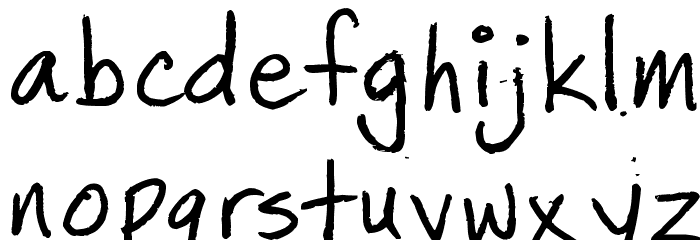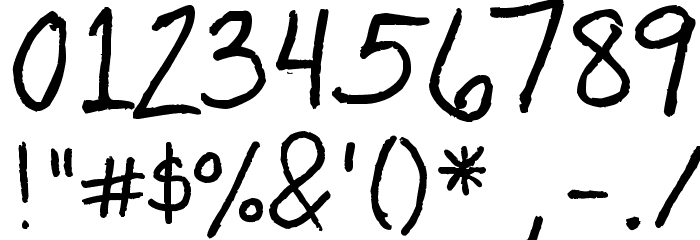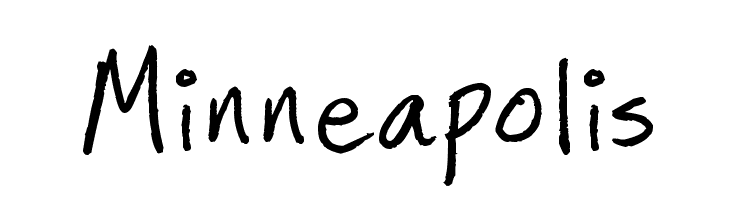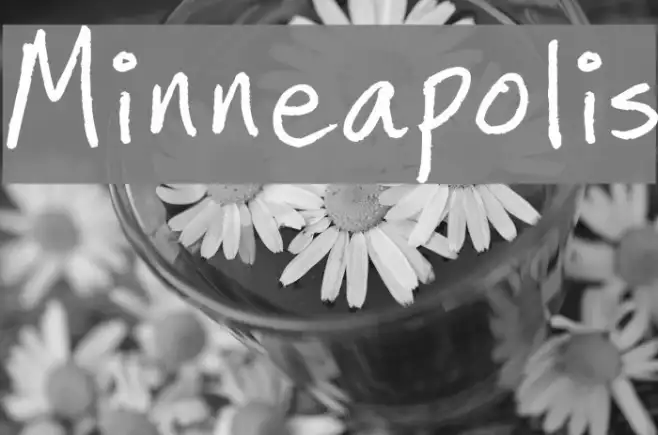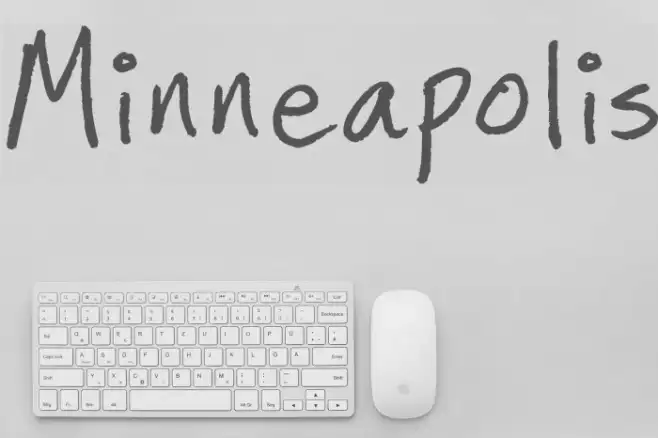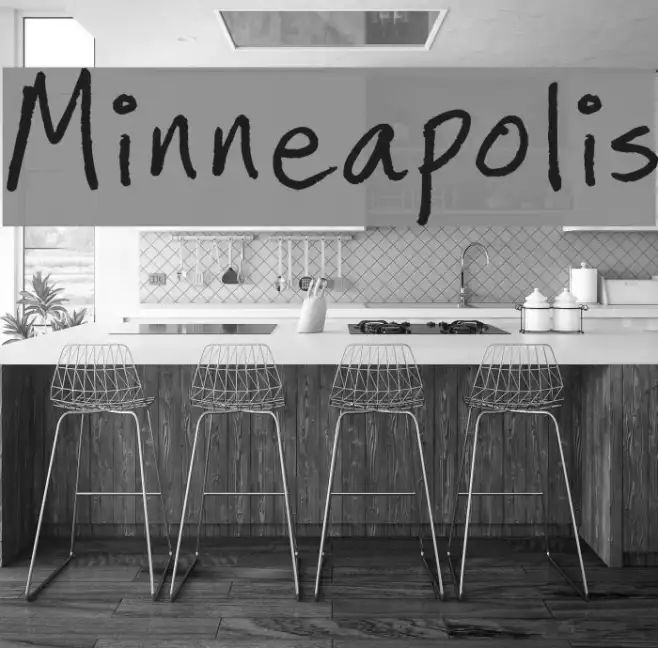
Minneapolis Font
This font exhibits a hand-drawn, casual style with an organic and slightly irregular appearance. The letters are unevenly weighted, giving them a dynamic and lively feel. The uppercase and lowercase characters maintain a consistent style, with a playful and informal tone. The numbers and special characters follow the same aesthetic, adding to the cohesive look of the font. The strokes are varied, with some letters having thicker lines and others appearing more slender, contributing to the overall handcrafted look. This font would be ideal for projects that require a personal touch or a sense of authenticity.
A hand-drawn, casual font with an organic and lively appearance.
- Font: Minneapolis
- Proposed Projects: Ideal for greeting cards, invitations, posters, and branding that seeks a personal or informal touch.
- Category: Handwritten
- Overall Style: Casual, Handcrafted
- Use Case: Headlines, Informal Text, Creative Projects